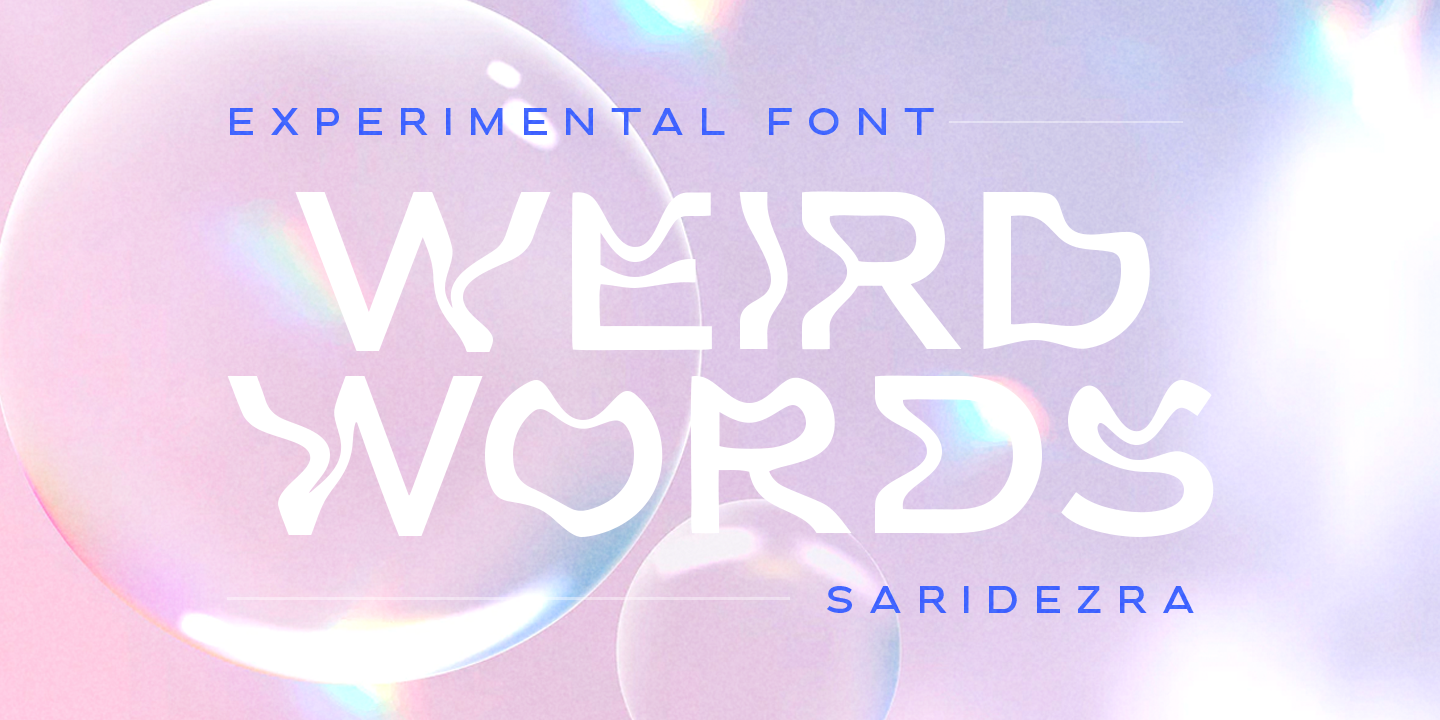
Weird Words Font is perfect for quirky science fiction novels, experimental art installations, surreal poster designs, alternative music album covers, unconventional greeting cards, eccentric brand identities, bizarre comedy show graphics, abstract magazine layouts, oddball social media content, and unconventional creative projects.
What makes Weird Words Font so exciting is its boldly unconventional embodiment of linguistic rebellion and typographic surrealism through bizarrely twisted letterforms that challenge every expectation and defy traditional design conventions with delightful absurdity. The font's design philosophy celebrates the beauty of the unexpected and the power of visual surprise, featuring distorted proportions, impossible angles, and deliberately strange characteristics that mirror the wonderfully weird world of experimental literature and avant-garde expression. Each character appears to exist in its own dimension of strangeness, creating a visual language that instantly communicates creativity, nonconformity, and the liberating joy of embracing the beautifully bizarre and wonderfully weird aspects of human imagination and artistic expression.
The Weird Words Font family includes bizarre variations: Regular, Bold, Light, Medium, Condensed, Extended, Italic, Strange, and Surreal styles. Each variation maintains the font's characteristic weirdness while offering different levels of typographic absurdity and experimental detail for various unconventional and avant-garde design applications.
When searching for a typeface that embodies the essence of creative weirdness and typographic rebellion, Weird Words Font Free Download represents the perfect fusion of artistic strangeness with functional readability that elevates any project to new dimensions of creative authenticity and unconventional appeal.
The wonderfully crafted letterforms of Weird Words Font demonstrate superior attention to experimental design principles, featuring bizarre proportions, strange spacing, and impossible curves that ensure optimal impact while maintaining the font's distinctive weird character. Its versatile design adapts beautifully from intimate sticker collections to expansive art gallery installations.
Professional designers working on experimental projects, alternative brands, and creative ventures particularly value the font's ability to convey originality, strangeness, and artistic rebellion. The typeface works exceptionally well for projects targeting creative communities, art enthusiasts, and anyone seeking to project unconventional positioning and wonderfully weird excellence.
The extensive OpenType features of Weird Words Font include bizarre alternates, strange ligatures, and specialized experimental characters that enable designers to create authentically weird typography while maintaining the font's distinctive surreal character throughout all design elements and unconventional applications.